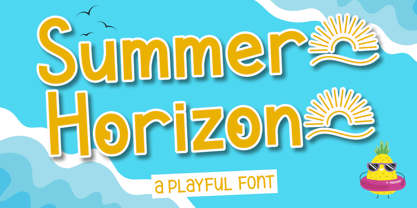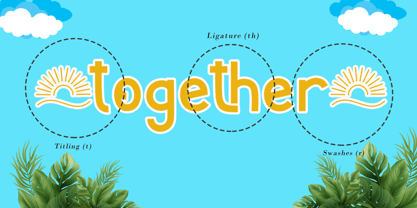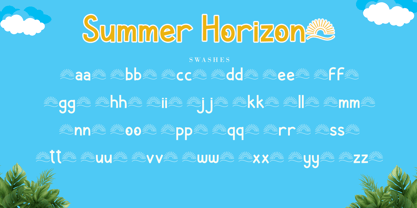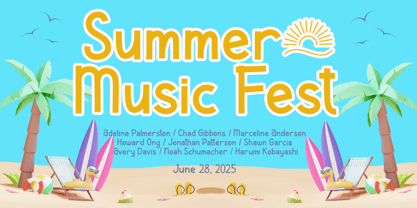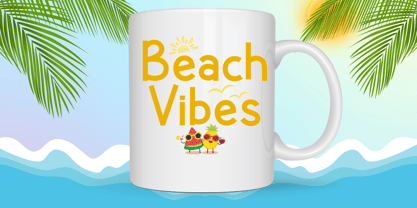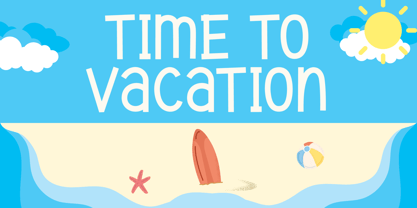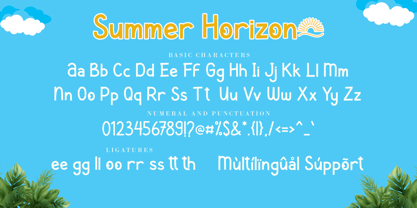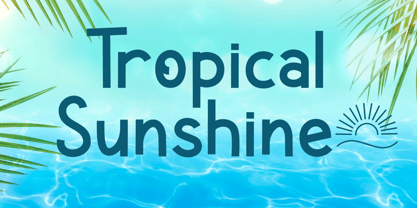
Summer Horizon
by AEN Creative Studio
The Summer Horizon Font Family was designed by Agung Eko Nugroho and published by AEN Creative Studio. Summer Horizon contains 2 styles and family package options. More about this family
Summer Horizon is more than just a font, it’s a celebration of summer in every letter. With its playful and fun aesthetic, this typeface captures the essence of sunny days and carefree moments. Perfectly tailored for summer-themed designs, it adds an inviting warmth to everything from mugs and posters to social media content. Whether you’re creating cheerful event invites or eye-catching graphics, let this font bring a sunny twist to your project.
Designers: Agung Eko Nugroho
Foundry: AEN Creative Studio